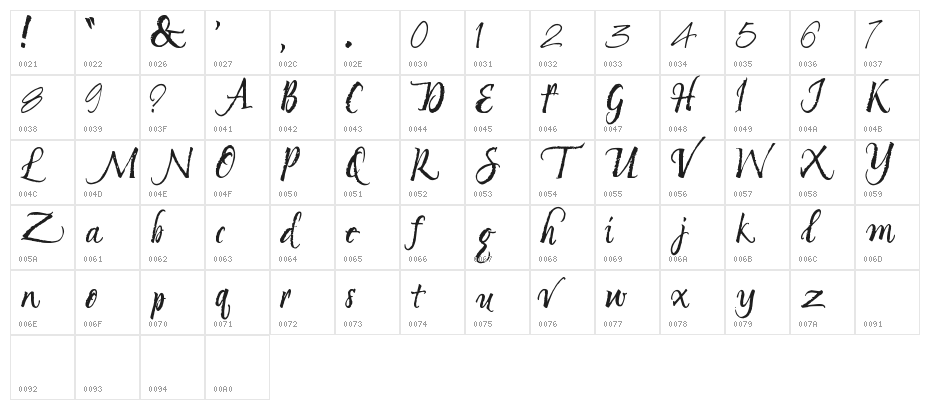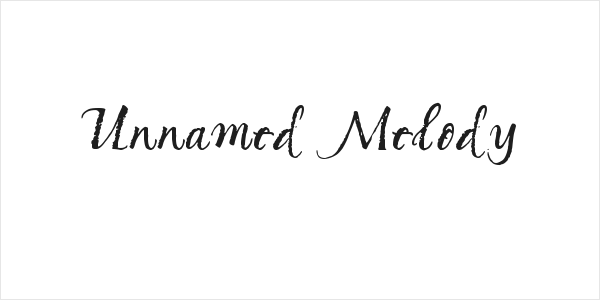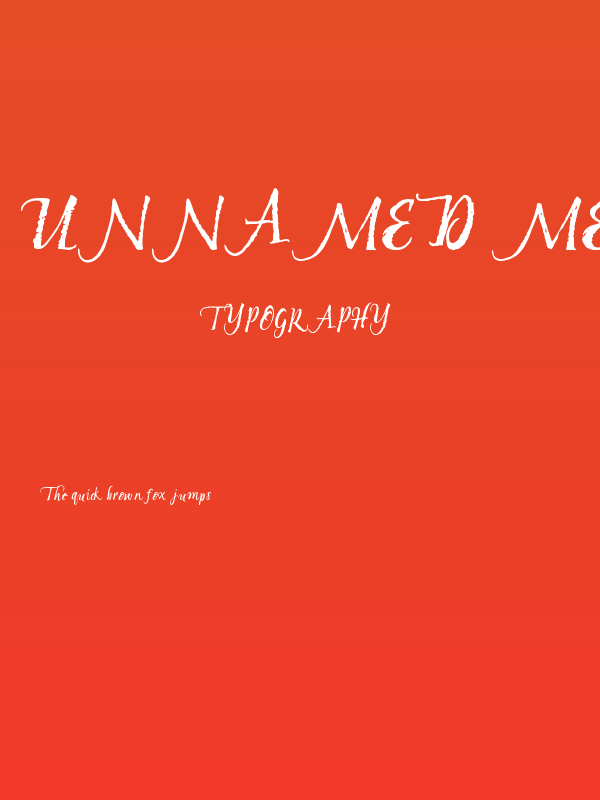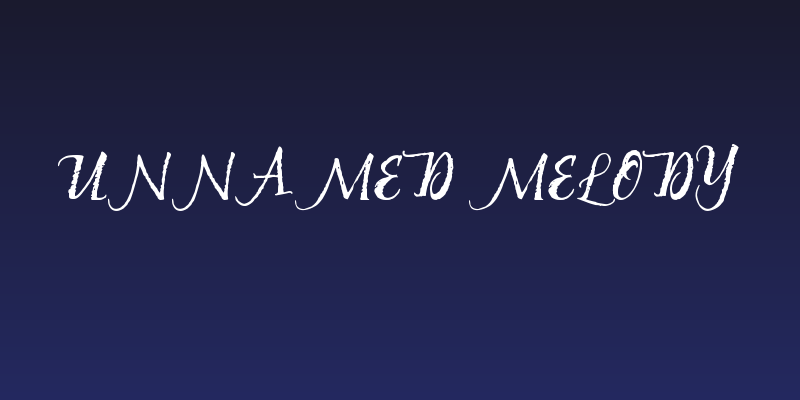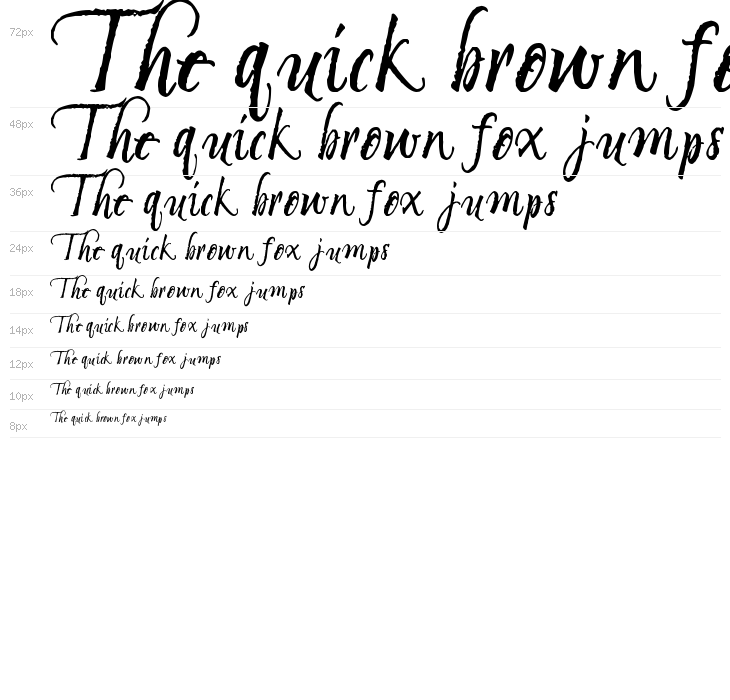
Unnamed Melody Font
Unnamed Melody Description
This font exudes a dynamic and artistic flair, characterized by its flowing, cursive script style. The letters are elegantly crafted with a sense of movement, featuring varying stroke widths that add a lively rhythm to the text. The uppercase letters are bold and expressive, while the lowercase letters maintain a graceful continuity. The numerals and special characters complement the overall aesthetic, making it suitable for creative and decorative applications. The font's unique brush-like texture gives it a handcrafted feel, perfect for projects that require a personal touch.
| Proposed Projects | Ideal for wedding invitations, greeting cards, branding, and artistic posters. |